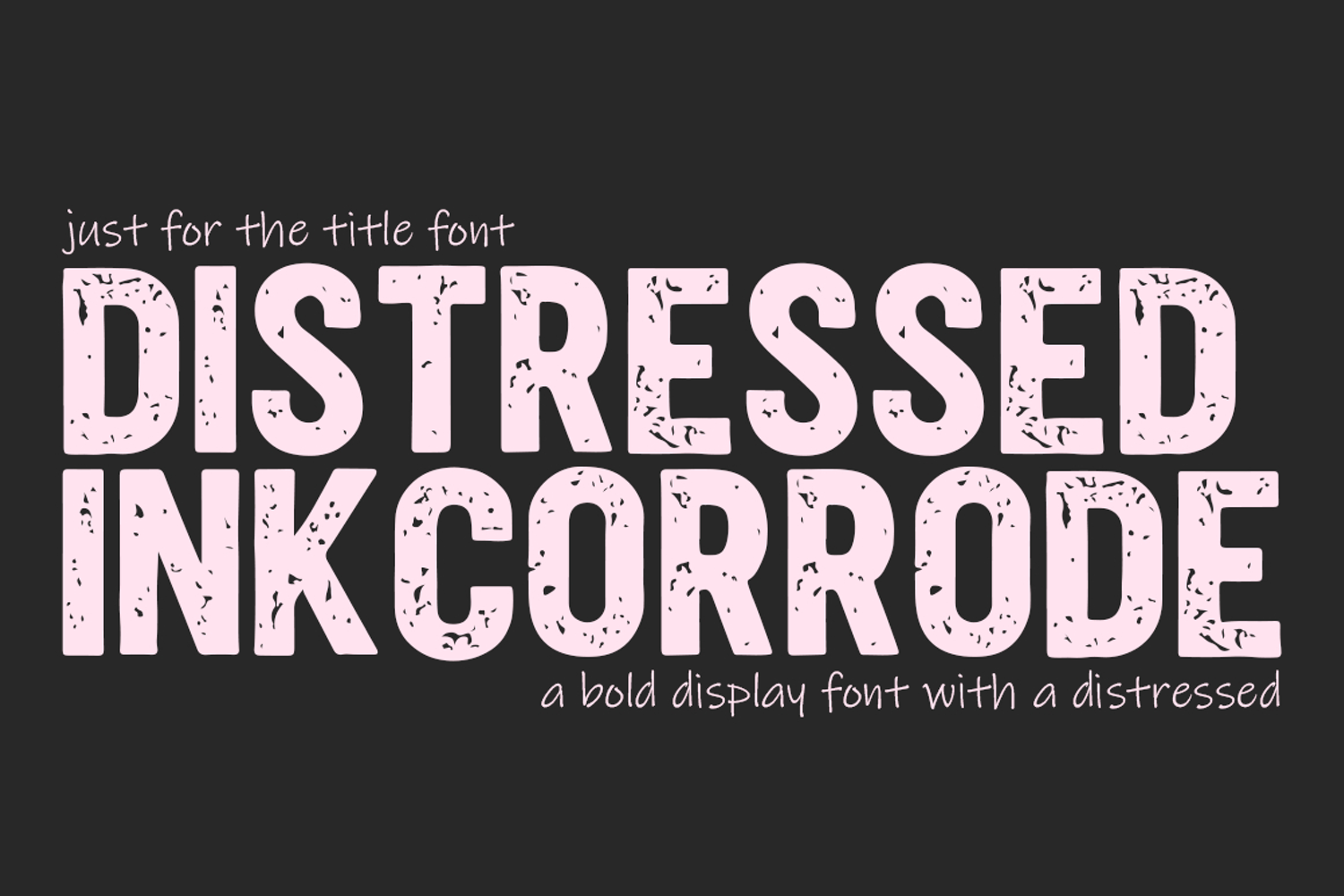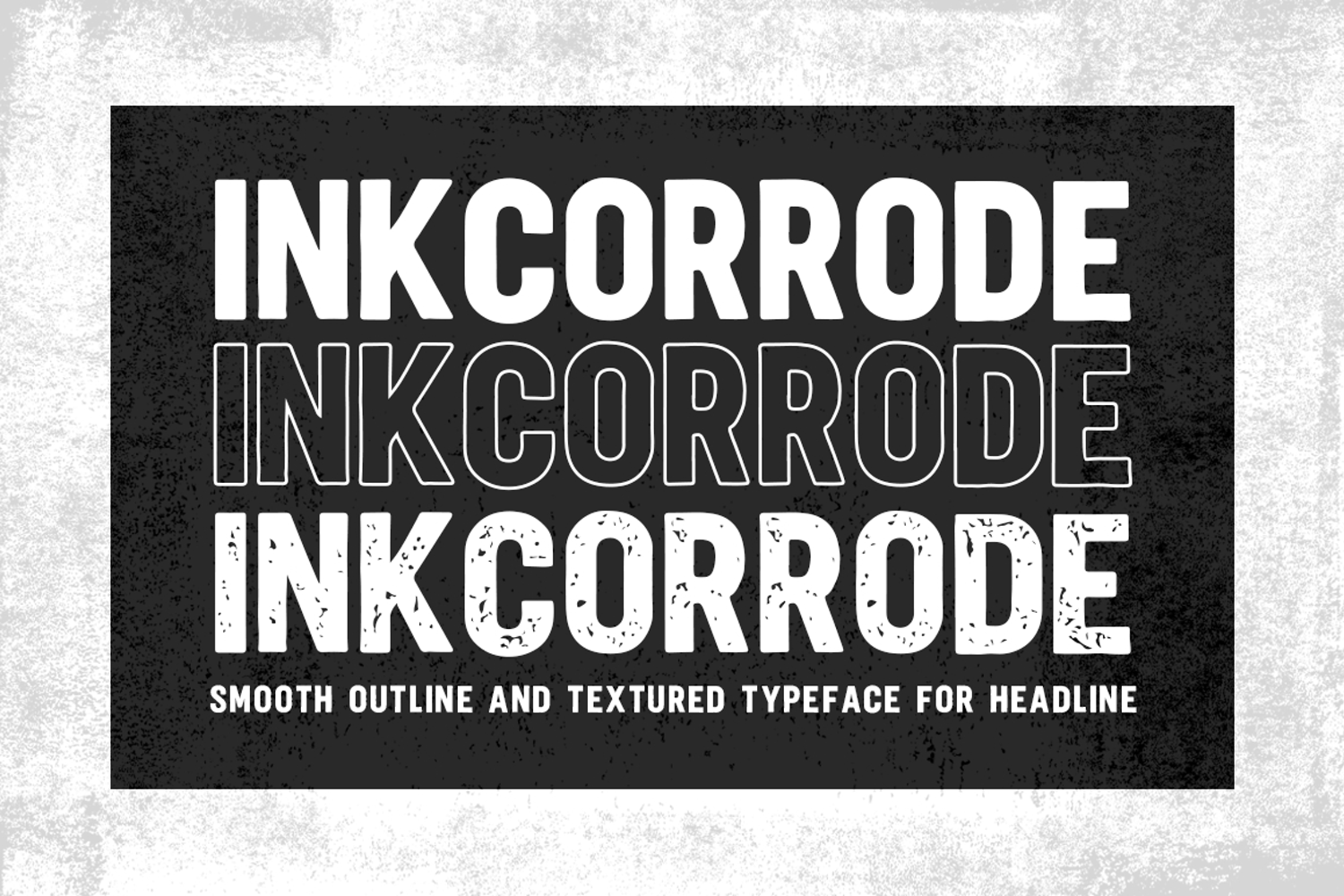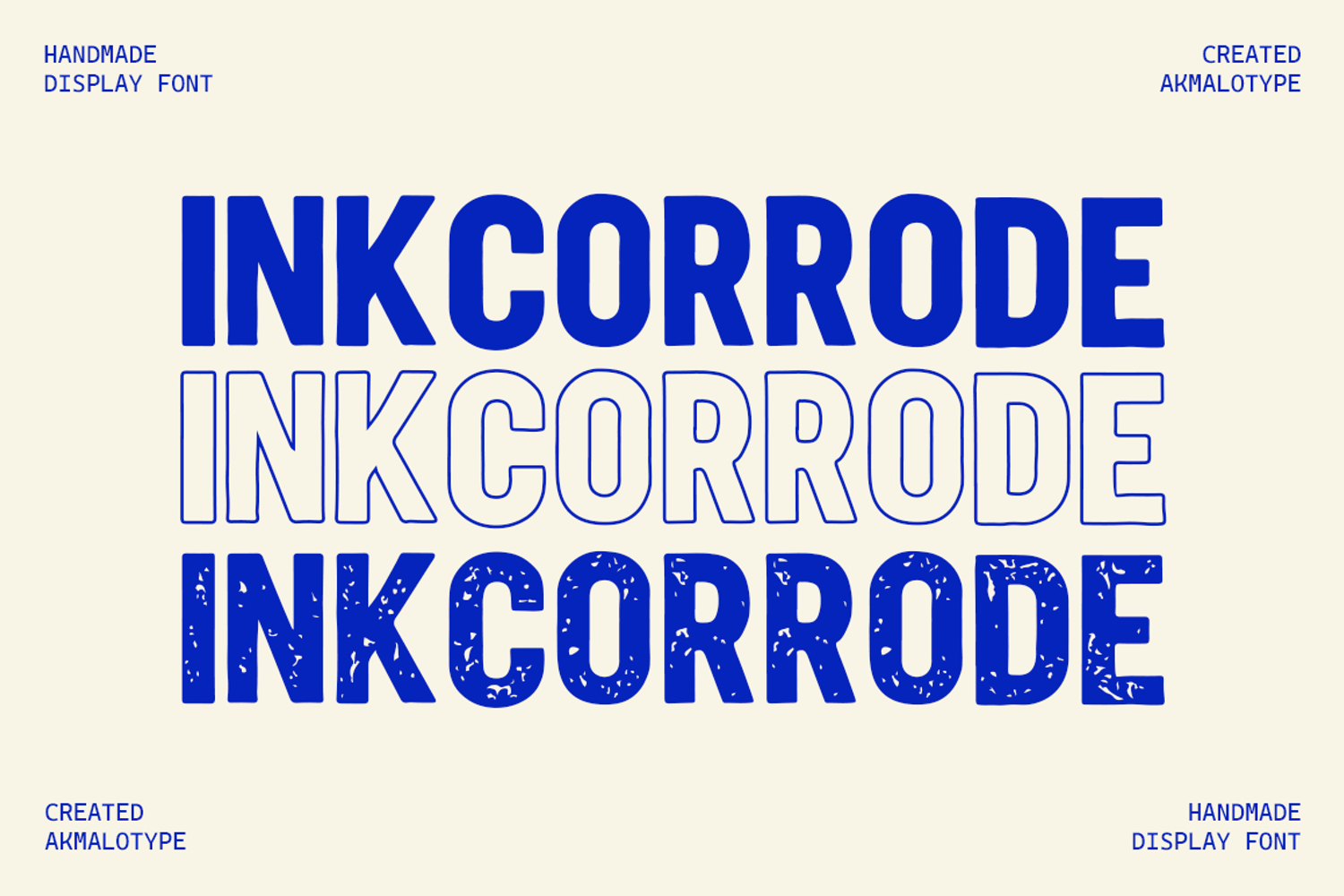
Inkcorrode Font - Distressed
Inkcorrode Smooth
Inkcorrode Outline
Inkcorrode
INKCORRODE is a bold display font with a distressed, corroded ink texture that creates a strong industrial and grunge feel. It’s perfect for designs that need a rough, bold, and character-driven look such as posters, branding, or urban-themed artwork.